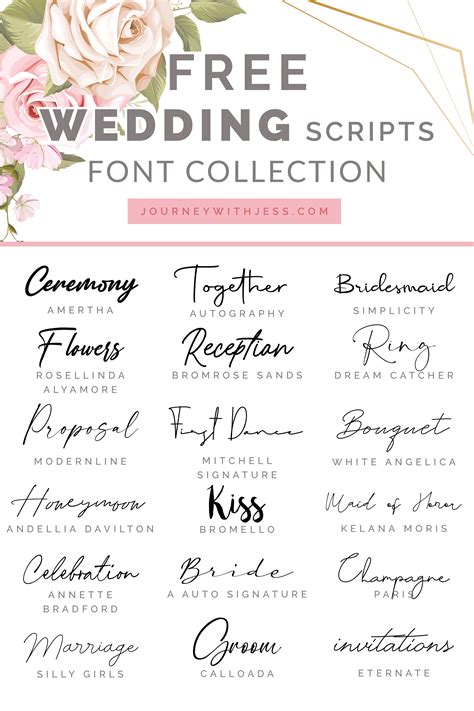
Best Cursive Wedding Fonts. Web discover elegant free cursive wedding fonts. Grestal script by konstantine studio.
Weddingday by billy argel fonts. Web discover elegant free cursive wedding fonts. Web wedding fonts 👰🤵💍💒 the best free styles | fontspace wedding fonts 💍 celebrate marriage with these beautiful modern. Art deco typography at its best (image credit: Stylish calligraphy by misti's fonts. Web elegant cursive wedding fonts. Download beautiful, free wedding fonts that will make your special day even more unforgettable. Stylish calligraphy by misti's fonts. Ananda black by billy argel fonts.